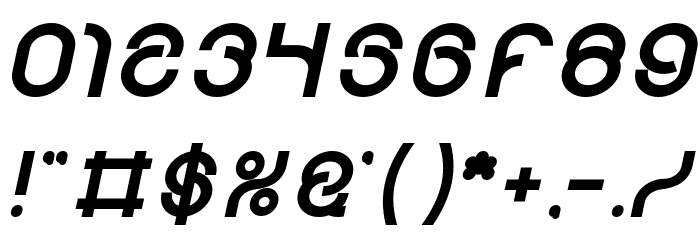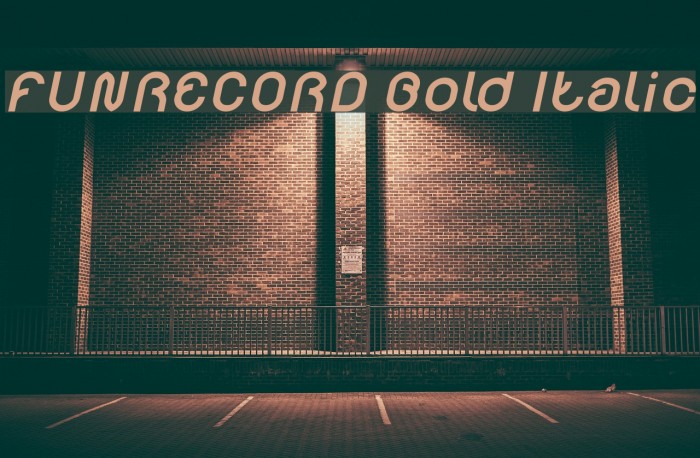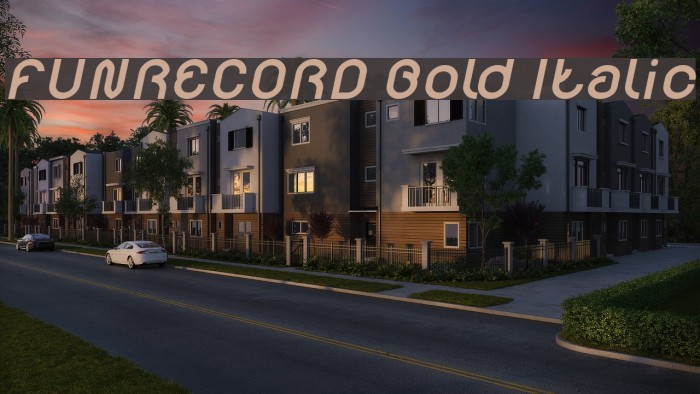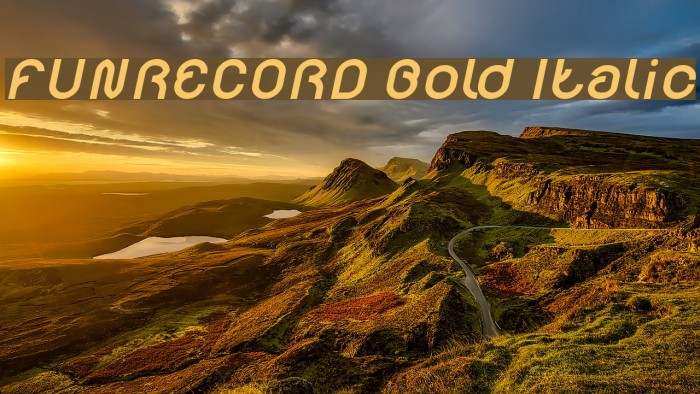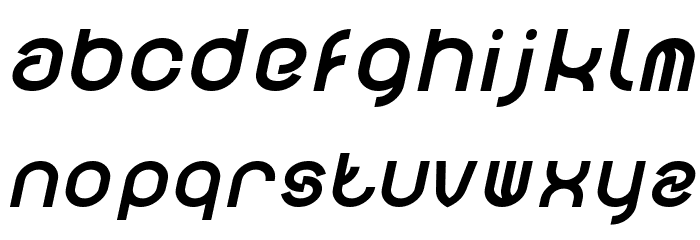
FUNRECORD Bold Italic Font
This font exhibits a bold and italicized style with a playful and dynamic appearance. The characters are rounded and slightly slanted, giving a sense of movement and energy. The uppercase and lowercase letters maintain a consistent style, with smooth curves and a modern flair. Numbers and special characters are designed to match the overall aesthetic, ensuring uniformity across all elements. The font's bold weight and italic slant make it stand out, suitable for projects that require a lively and engaging typeface.
A bold, italicized font with a playful and dynamic style.
• Proposed Projects: Ideal for branding, posters, and headlines that require a bold and energetic look.
• Category: Decorative/Display
• Bold: Yes
• Italic: Yes
• Weight: Bold
• Width: Normal
• Character Spacing: Normal
• Contrast: Medium
• Overall Style: Modern
• Use Case: Headlines, Logos, Posters